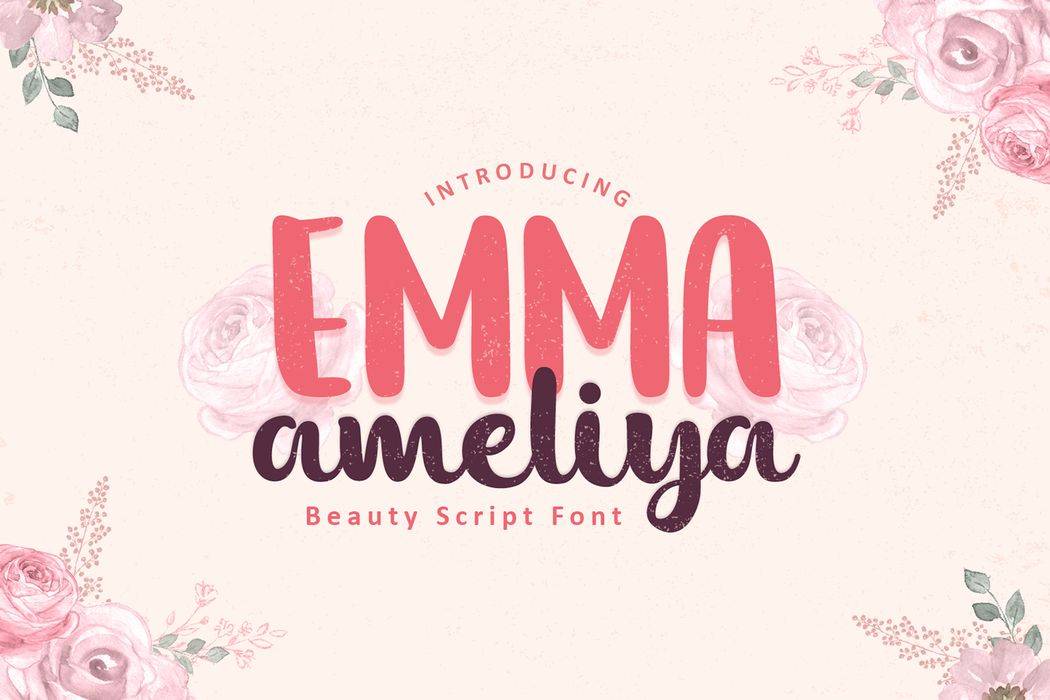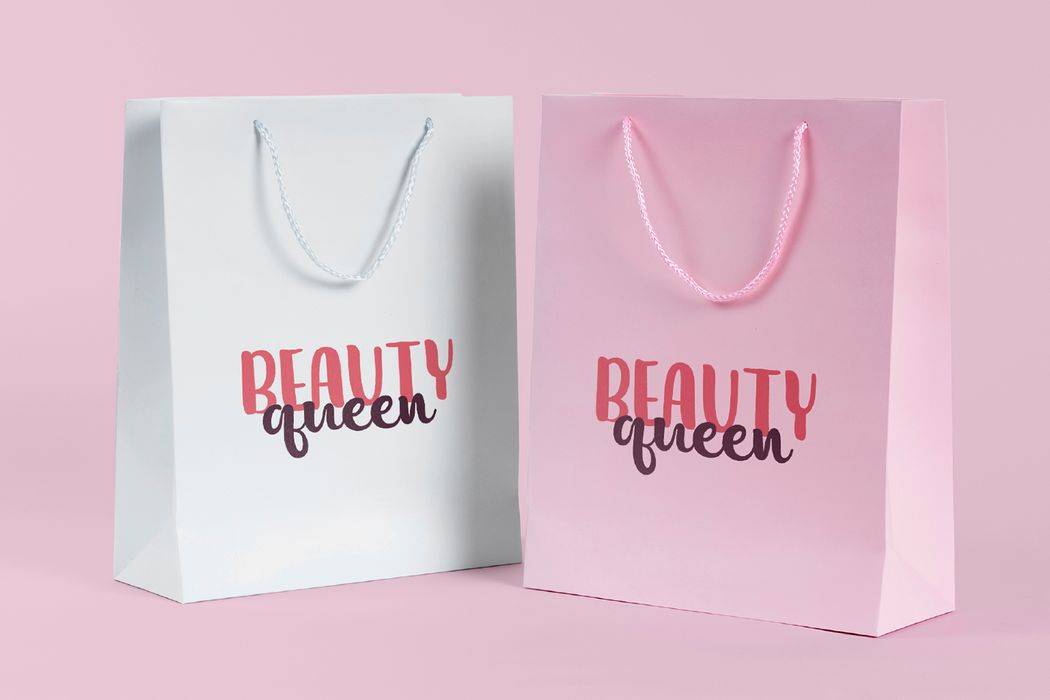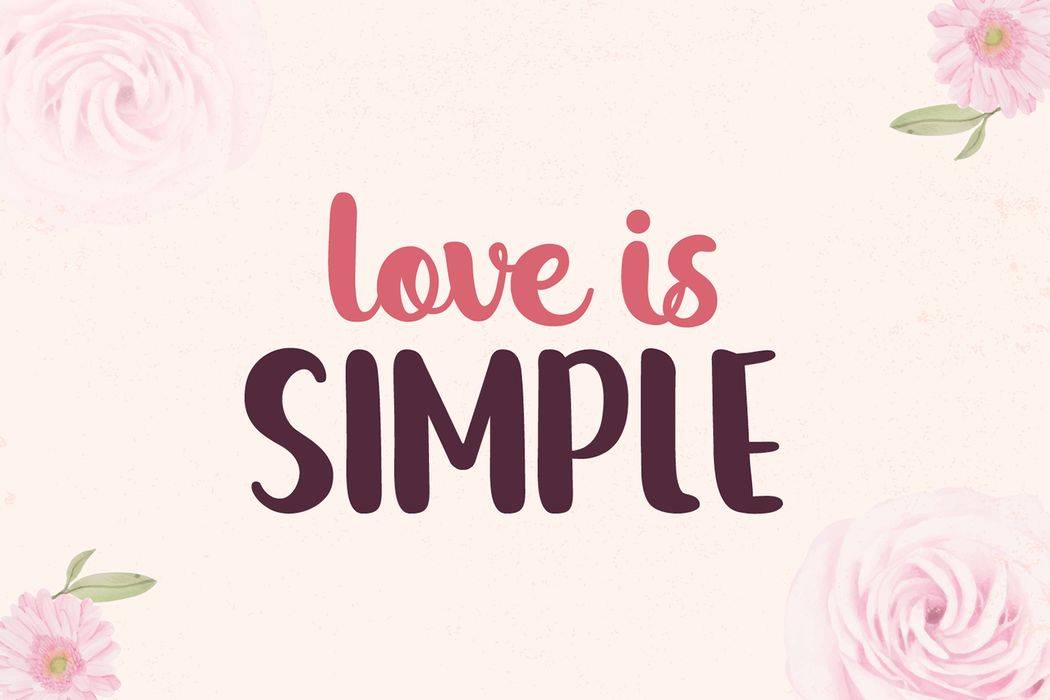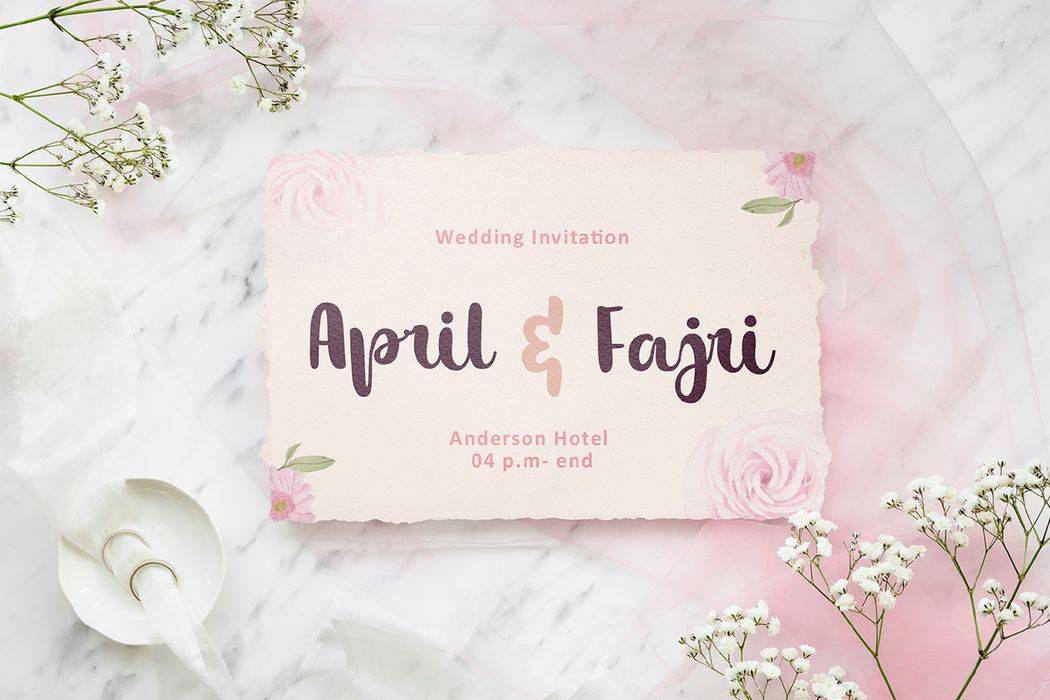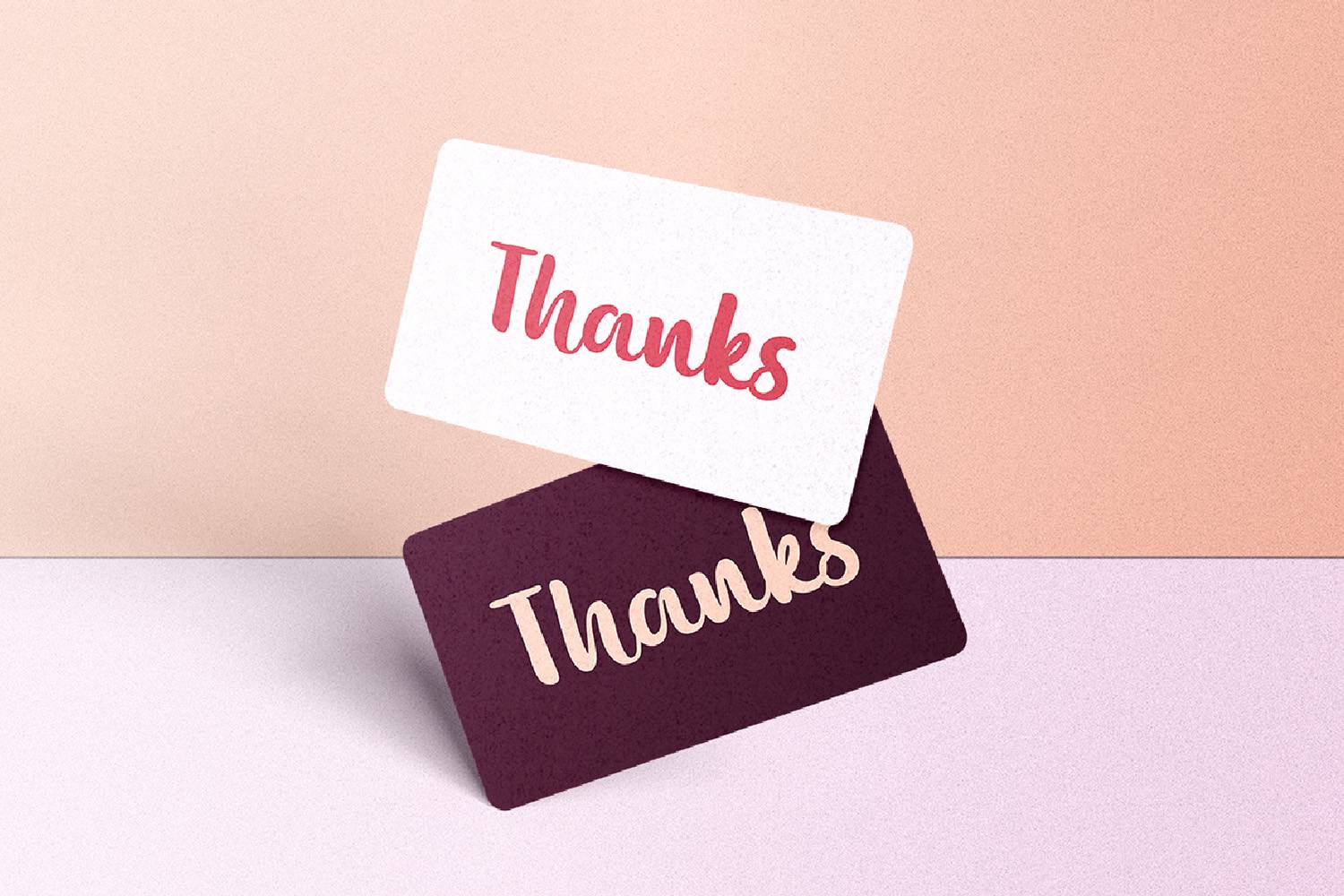
Emma Ameliya is a playful and friendly script font with a casual handwritten feel. Its rounded, bold strokes and smooth curves create a warm, approachable style perfect for branding, invitations, and creative projects that want to convey charm and personality. This font works well in headlines and logos where a touch of fun and informality is desired.
Emma Ameliya Font
About Emma Ameliya Font
| Font family | Emma Ameliya Font |